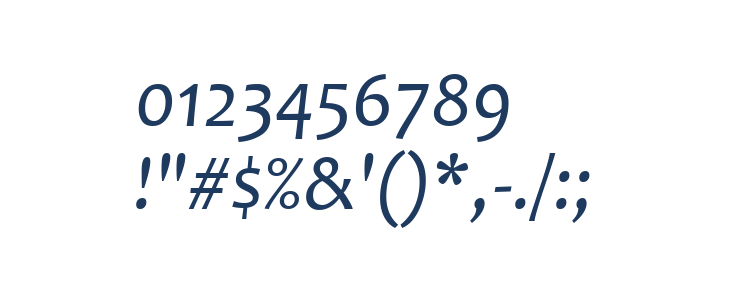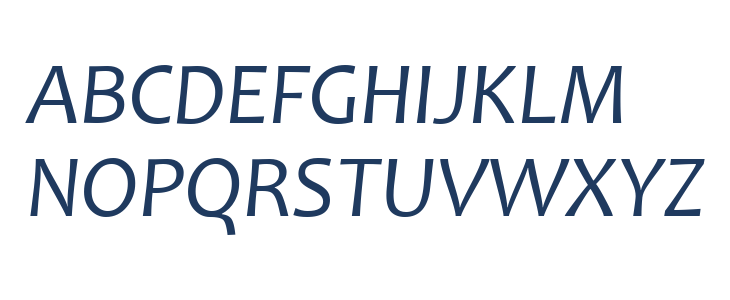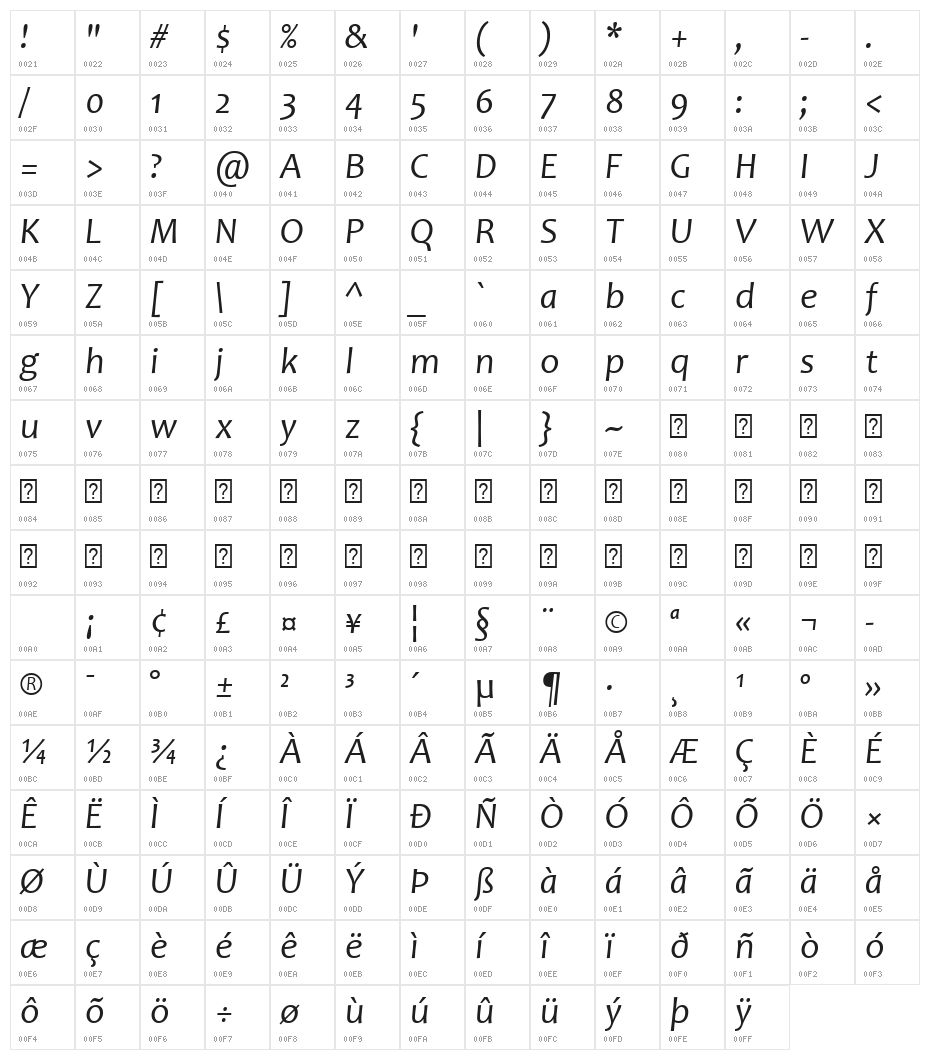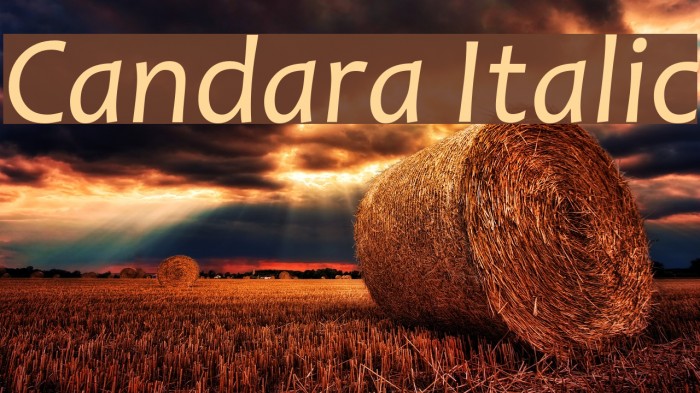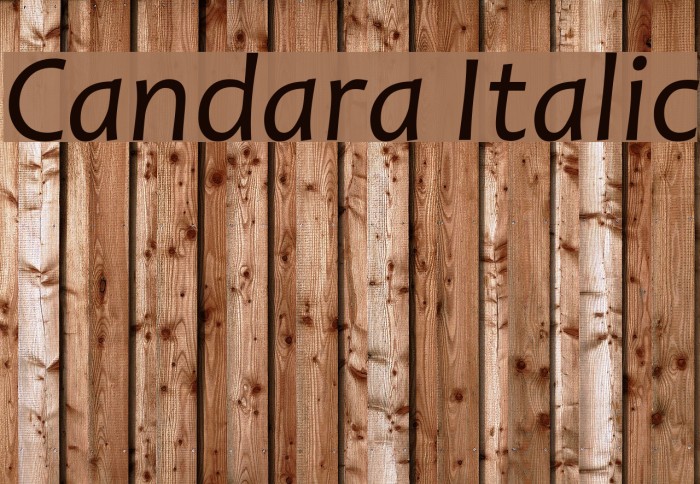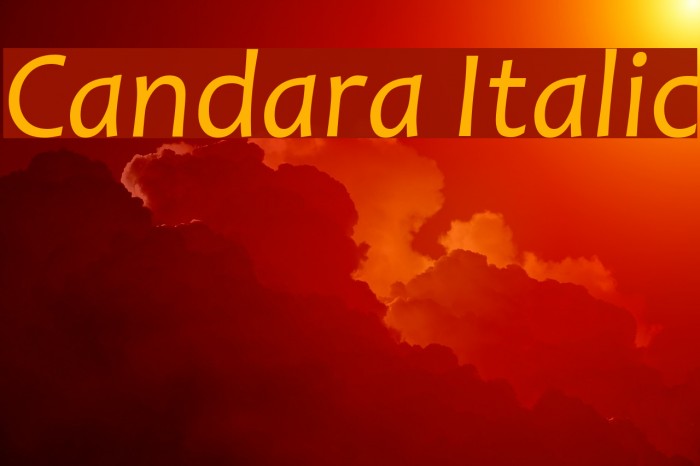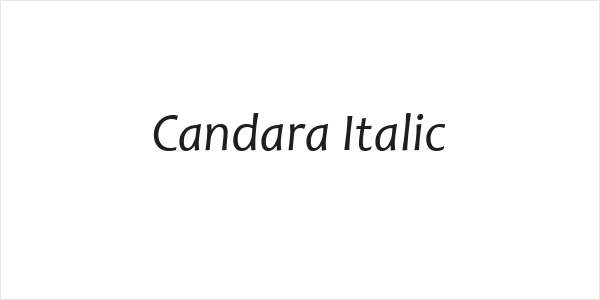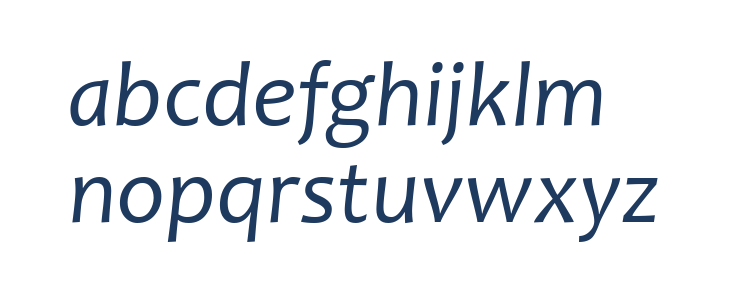
Candara Italic Font
Candara Italic Description
This font features a clean and modern design with a slight italic slant, giving it a dynamic and elegant appearance. The characters are well-proportioned with smooth curves and a consistent stroke width, making it highly legible. The uppercase letters are slightly taller than the lowercase, providing a nice contrast. The numerals are clear and distinct, while the special characters are designed to complement the overall style. This font's versatility makes it suitable for a wide range of applications.